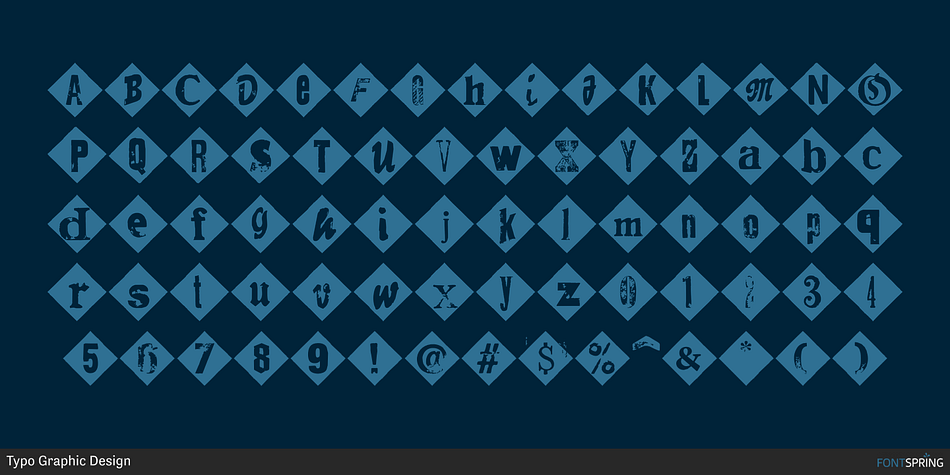
Hand Print Stamp Rough Diamond STD
Designed by Manuel Viergutz, Hand Print Stamp Rough is a grunge, hand display and dingbat font family. This typeface has thirteen styles and was published by Typo Graphic Design.
The typeface Hand Print Stamp Rough is designed in 2018 for the font foundry Typo Graphic Design by Manuel Viergutz. The rough hand-printed typeface based on old wood letters, rubber-stamps and plastic stamps.
7 font styles (Reg + Mix, Circle, Diamond, Square Star + Icons) each with 1350+ glyphs incl. 200+ decorative extras like icons, arrows, dingbats, emojis, symbols, geometric shapes, catchwords, decorative ligatures (type the word LOVE for ♥ or SMILE for ☻ as OpenType-Feature dlig) and stylistic alternates (9+ stylistic sets). For use in logos, magazines, posters, advertisement and packaging plus as webfont for decorative headlines. The font works best for display size.
Character Set: Latin Extended (Adobe Latin 3).
1350+ glyphs with 200+ extra icons like arrows, dingbats, symbols, geomatric shapes, catchwords and many alternative letters. (9× A–Z, 9× a–z, 9× 0–9)
For use in magazines, posters, headlines and advertisement, plus as webfont for decorative headlines.
■ Font Name: Hand Print Stamp Rough
■ Font Weights: Regular + Mix, Circle, Diamond, Square, Star + Icons + DEMO (with redu­ced glyph-set)
■ Font Cate­gory: Sans Serif + Slab Serif Dis­play for Head­line Size
■ Glyph Set: 1350 glyphs
■ Spe­cials: 200+ deco­ra­tive extras like icons for arrows, ding­bats, emo­jis, sym­bols, geo­me­tric shapes, catch­words + Ger­man Capi­tal Eszett.
Open Type Fea­tures: Kerning (kern), Sty­listic Set 1 (ss01) … Sty­listic Set 16 (ss16), Loca­li­zed Forms (locl), Super­script (sups), Ordi­nals (ordn), Slashed Zero (zero), Frac­tions (frac), Stan­dard Liga­tures (liga), Con­text­ual Alter­na­tes (calt) e. g. Sty­listic Set-Loop and Deco­ra­tive Liga­tures (dlig) e. g. type the word “LOVE” for ❤ or “SMILE” for ☺
■ Design Date: 2018
■ Type Desi­gner: Manuel Vier­gutz